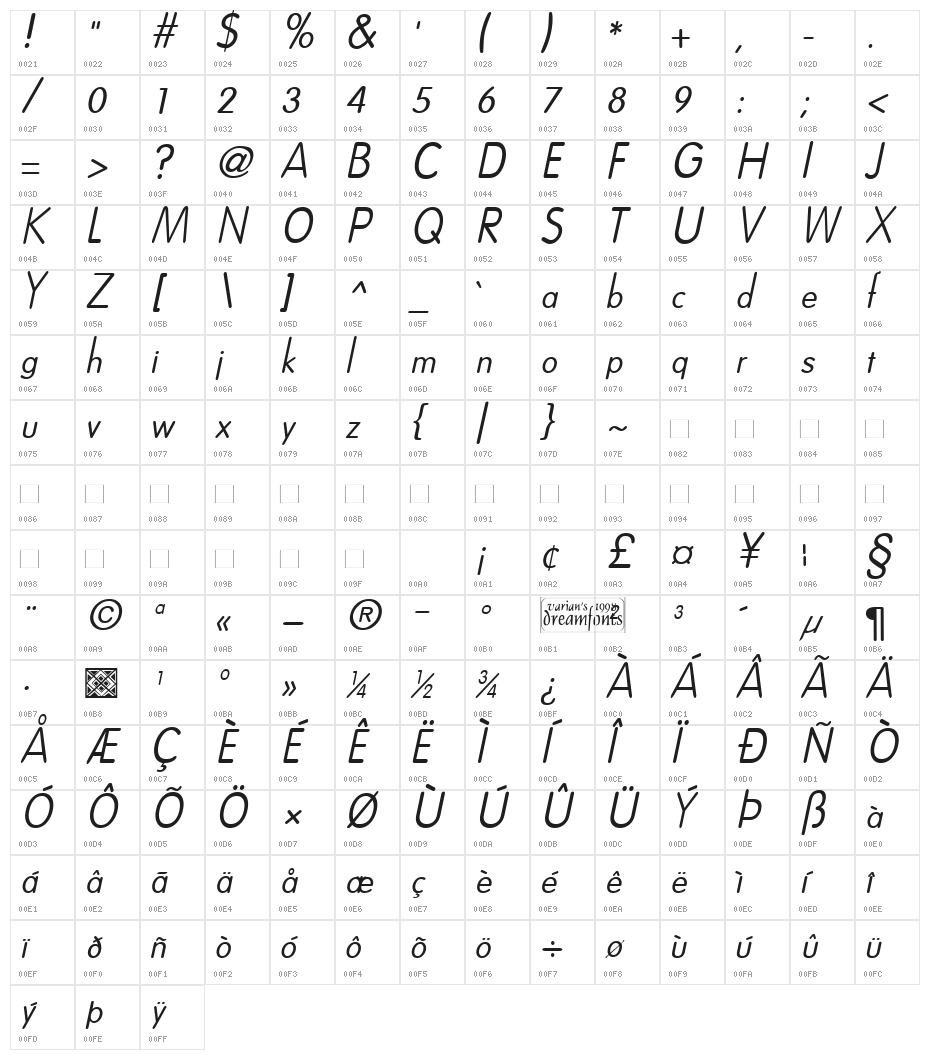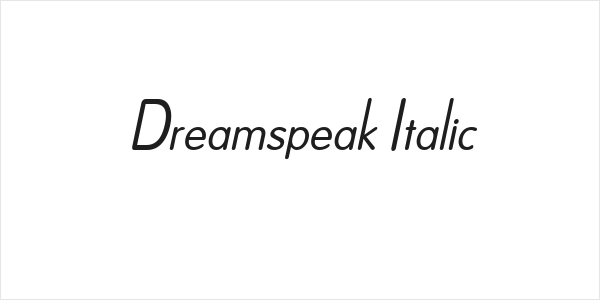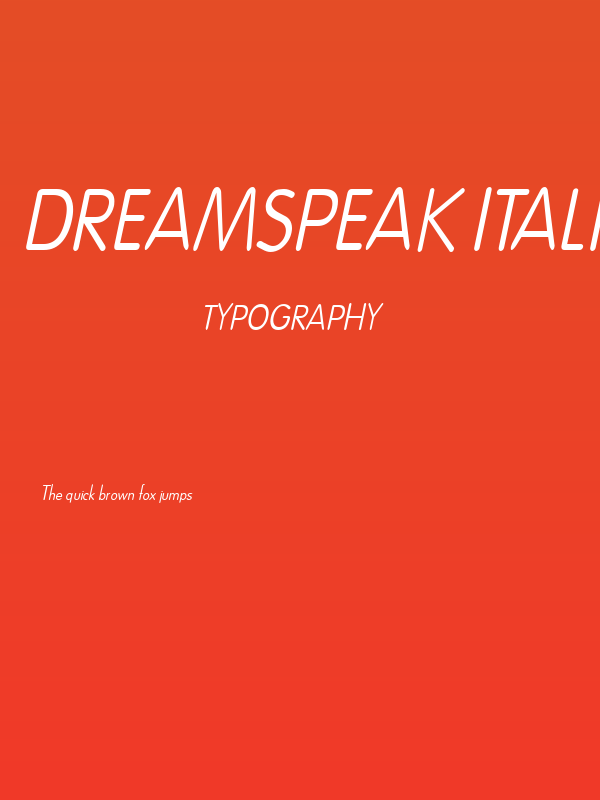
Dreamspeak Italic Font
Dreamspeak Italic Description
This font exhibits a sleek and modern design with a distinct italic slant, giving it a dynamic and forward-moving appearance. The characters are crafted with a clean, sans-serif style, emphasizing simplicity and readability. The strokes are consistent in weight, providing a uniform look across all characters. The numerals and special characters maintain the same elegant style, ensuring cohesion throughout. The overall design is minimalistic yet sophisticated, making it suitable for a variety of applications where a contemporary and stylish look is desired.
| Proposed Projects | Ideal for branding, advertising, and editorial design where a modern and stylish aesthetic is needed. |